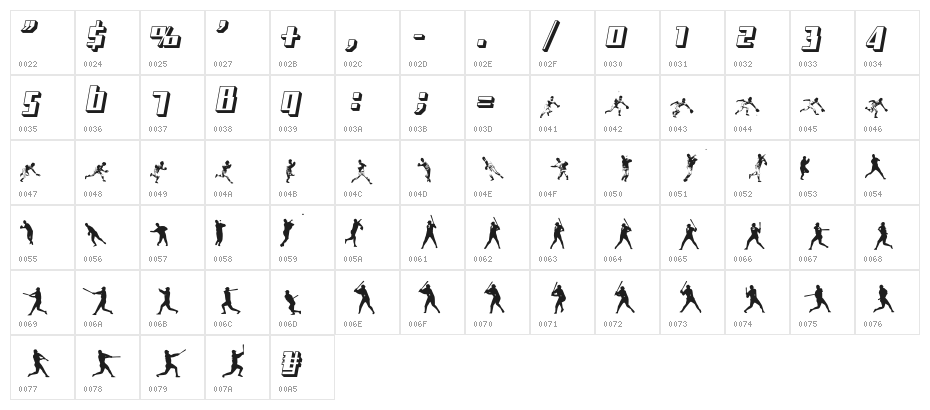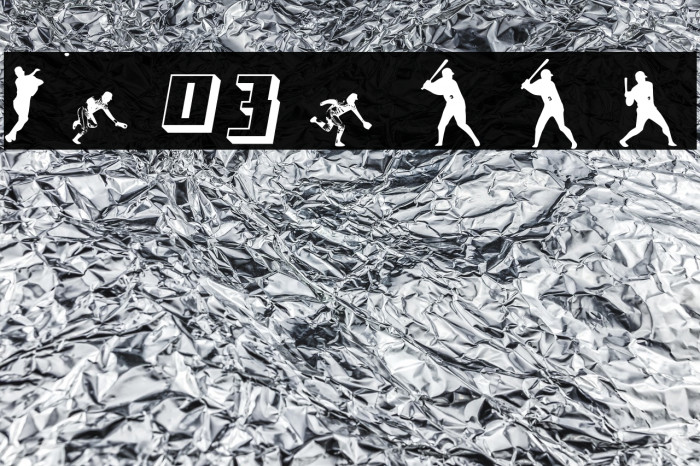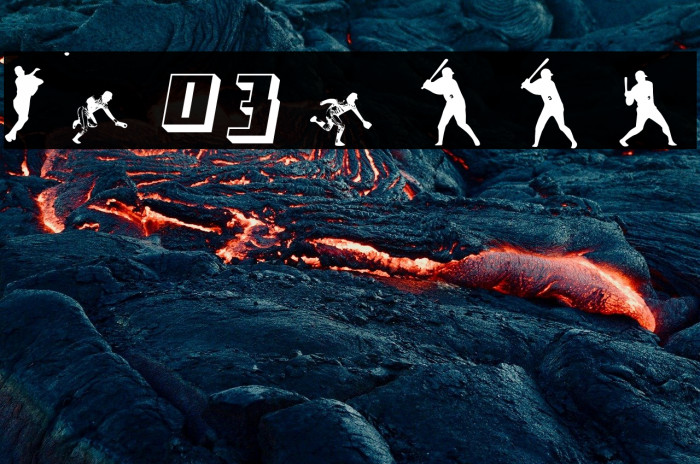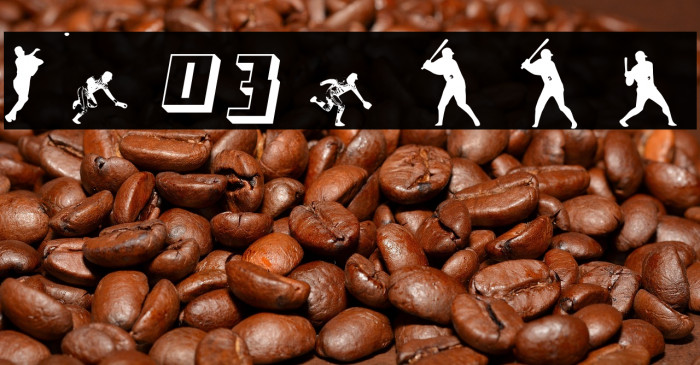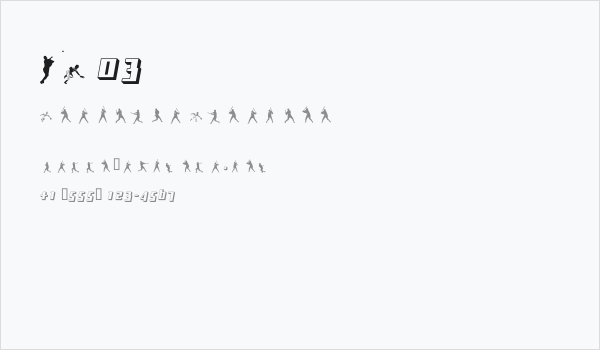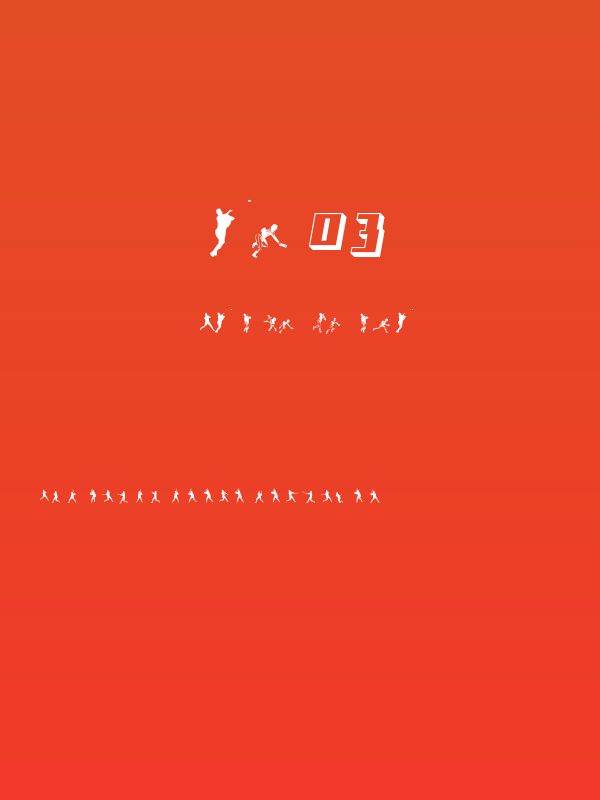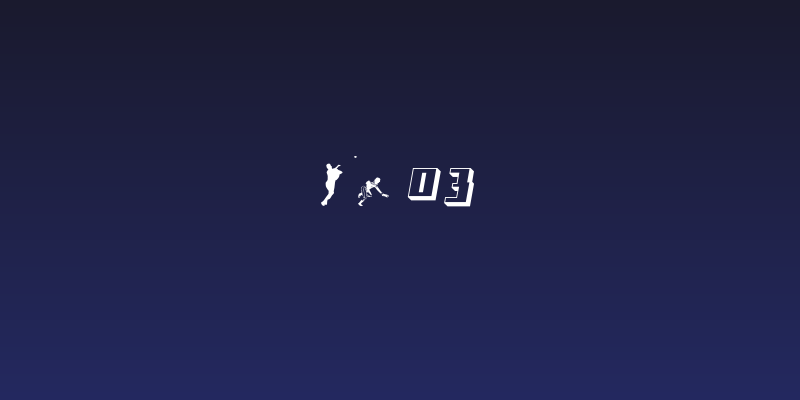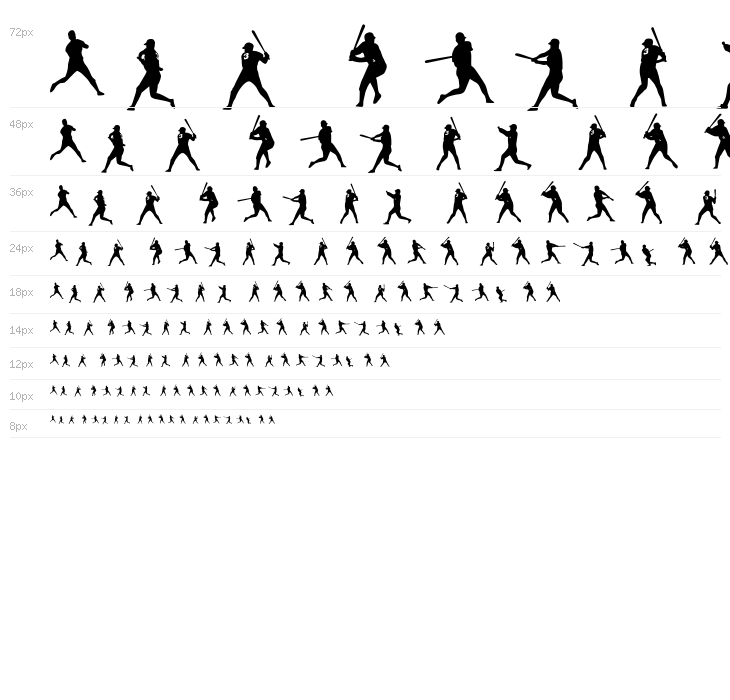
YG03 Font
YG03 Description
This is not a traditional font but rather a collection of silhouette images depicting various sports actions. The figures are dynamic and capture the essence of movement, making them ideal for sports-themed designs. The numbers and special characters are styled with a bold, three-dimensional effect, adding depth and a sense of playfulness. The overall design is unique and visually striking, suitable for projects that require a sporty and energetic vibe.
| Use Case | Logos, Posters, Apparel |
| Proposed Projects | Ideal for sports event posters, athletic apparel designs, and dynamic branding projects. |